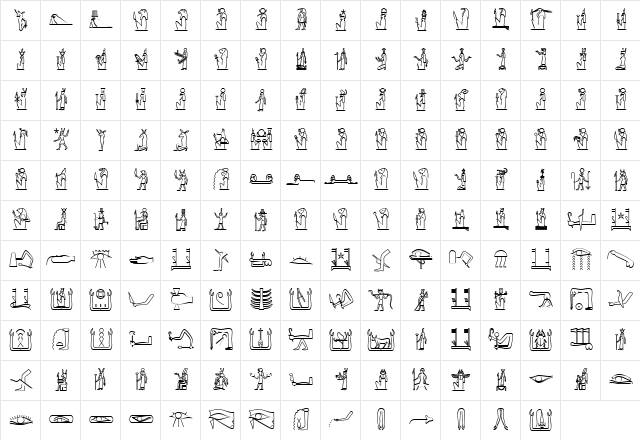
GlyphExtLibU Medium Free Font
GlyphExtLibU Medium
GlyphExtLibU Family
GlyphExtLibU Medium
Design Context for GlyphExtLibU
GlyphExtLibU is a composed and adaptable typeface that performs quietly and consistently across a wide range of design contexts.